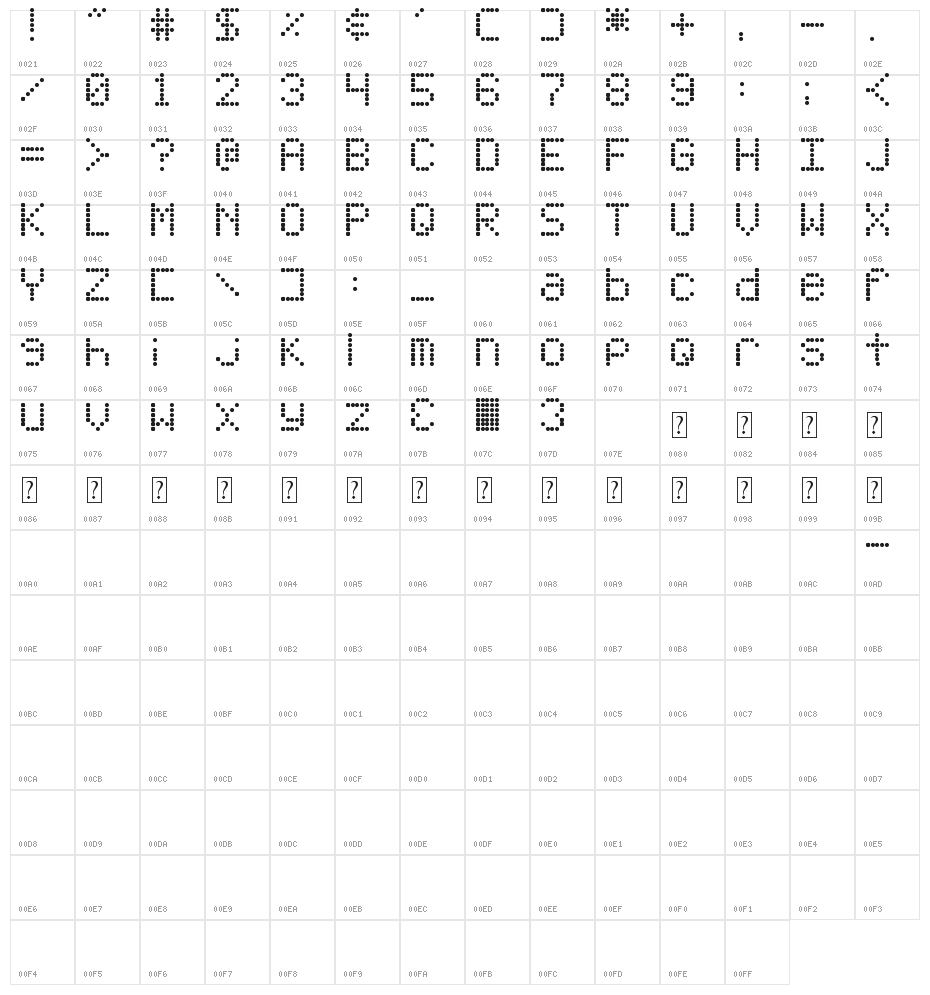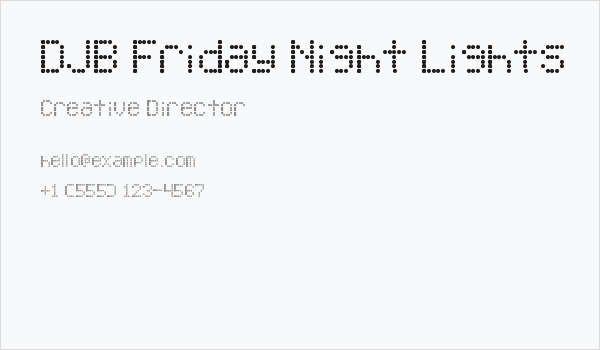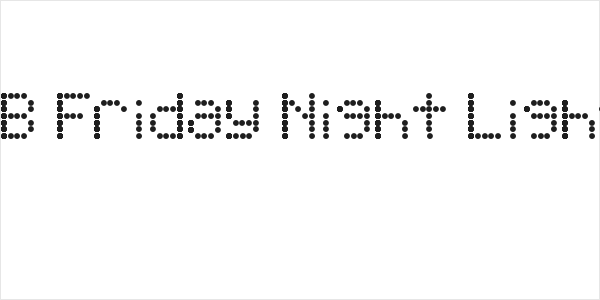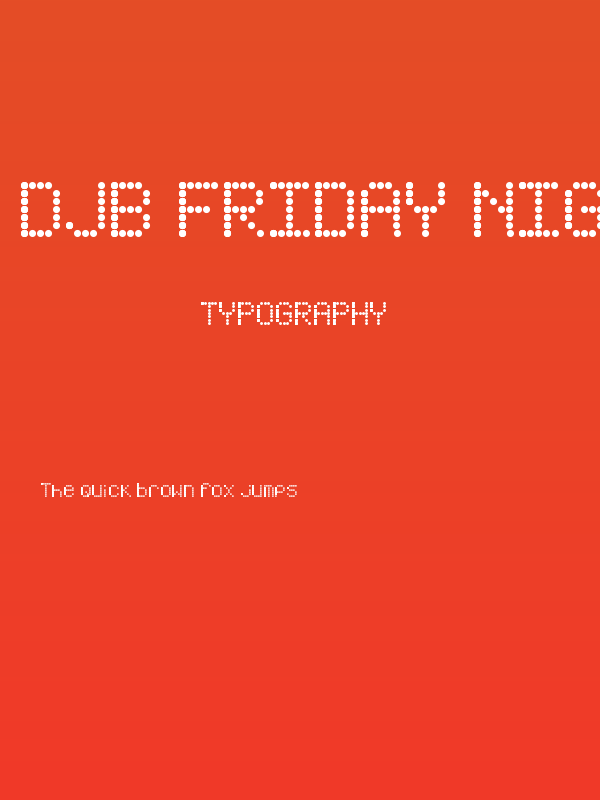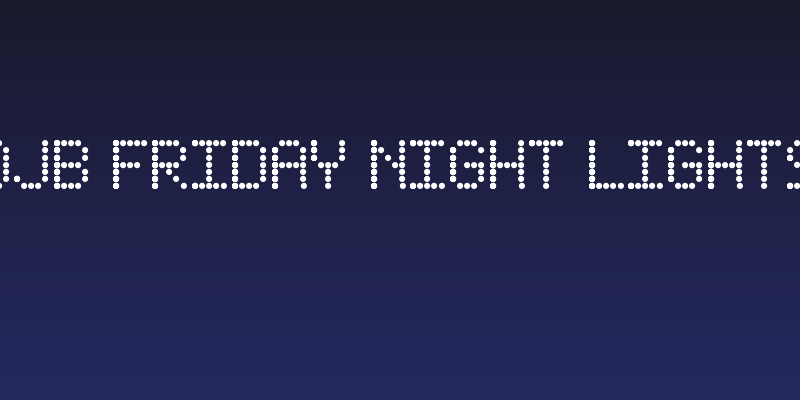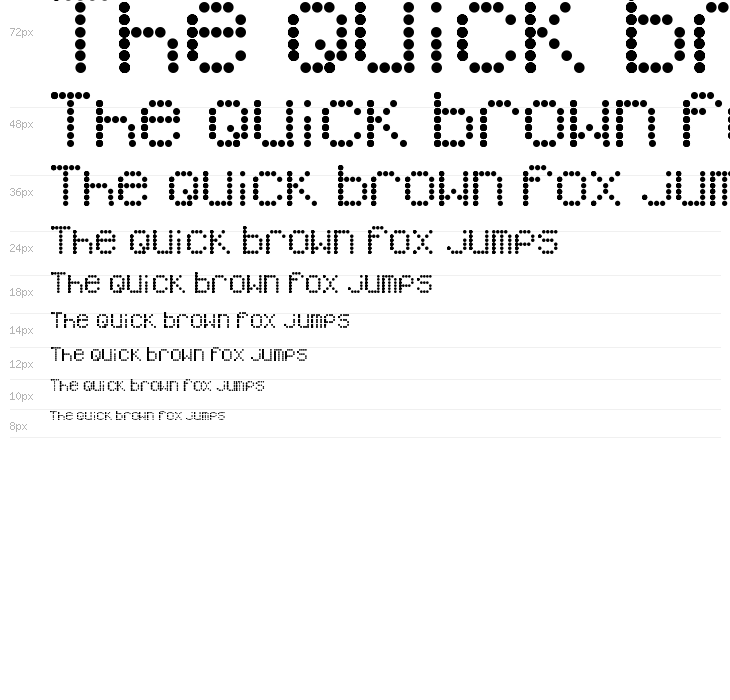
DJB Friday Night Lights Font
DJB Friday Night Lights Description
This font features a unique dotted style, where each character is composed of a series of evenly spaced dots. The design gives a digital or retro feel, reminiscent of LED displays or marquee lights. The characters are uniformly constructed, maintaining a consistent size and spacing that enhances readability despite the unconventional style. This font is particularly eye-catching and can add a playful or technological touch to any design. The uppercase and lowercase letters, numbers, and special characters are all crafted with the same dotted pattern, ensuring a cohesive look across all text elements.
| Proposed Projects | Ideal for digital displays, retro-themed designs, event posters, or any project needing a playful, tech-inspired aesthetic. |